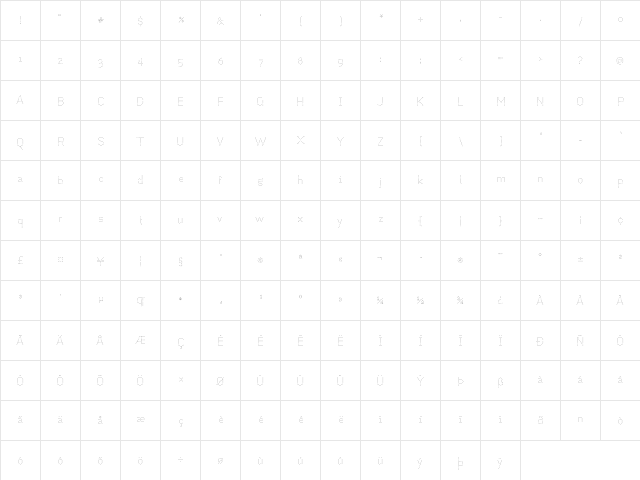
Pullchain Regular
| Designer | David Sudweeks |
Design Context for Pullchain Typeface
Pullchain offers clean, dependable letterforms without strong stylistic allegiance, making it a practical choice for designers who need flexibility.